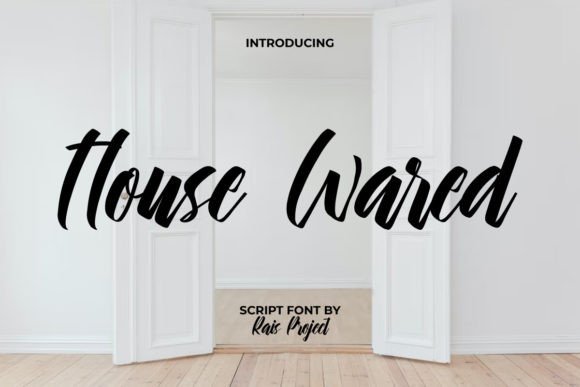
Introducing House Wared Font, the exquisite script font that exudes elegance and charm. With its bold, interconnected lines and effortless readability, House Wared captivates hearts and transforms words into art. This font family is a masterful creation of RaisProject, renowned for crafting fonts that resonate with beauty and purpose.
House Wared Font is more than just a font; it's an emotional journey that evokes the allure of calligraphy. Its intricate details and sweeping strokes dance across the page, carrying messages of love, joy, and creativity. Whether you're an event planner crafting enchanting invitations, a fashion designer envisioning captivating logos, or a florist weaving words of romance, House Wared Font is your artistic muse.
Enter the world of House Wared Font and unlock a treasure trove of creative possibilities. Its versatility spans industries like a boundless river, flowing seamlessly from event planning and wedding invitations to fashion statements and floral arrangements. Homeware, jewelry, perfume, printing, publishing, restaurants, salons, and spas all find their perfect companion in House Wared Font, elevating their brand identity with a touch of sophistication.
With House Wared Font, your designs will blossom into breathtaking works of art. Its bold strokes command attention, while its elegant curves add a touch of whimsy. Prepare to captivate your audience, leaving them spellbound by the artistry of your creations. House Wared Font isn't just a font; it's an experience that transforms the ordinary into the extraordinary.